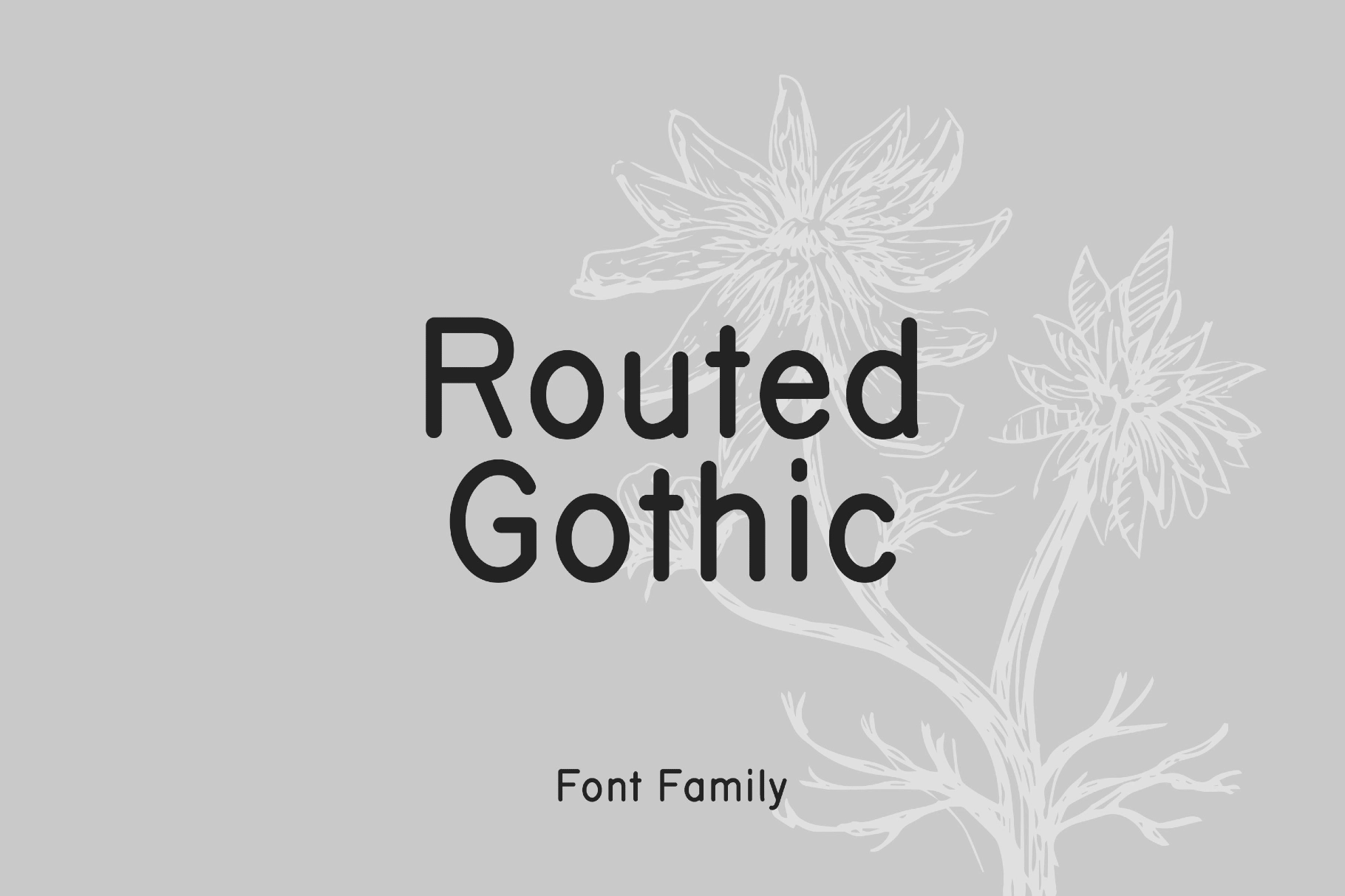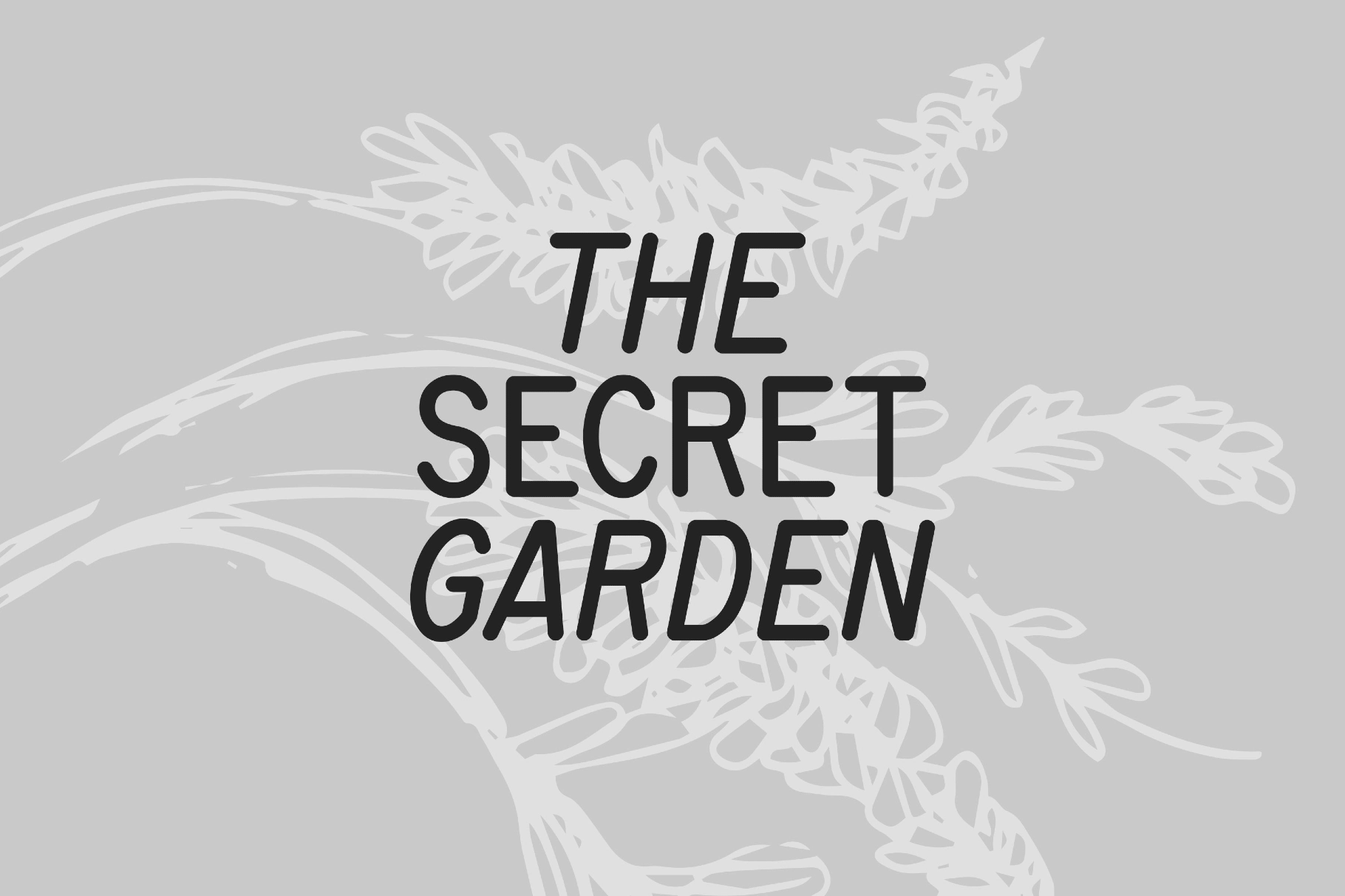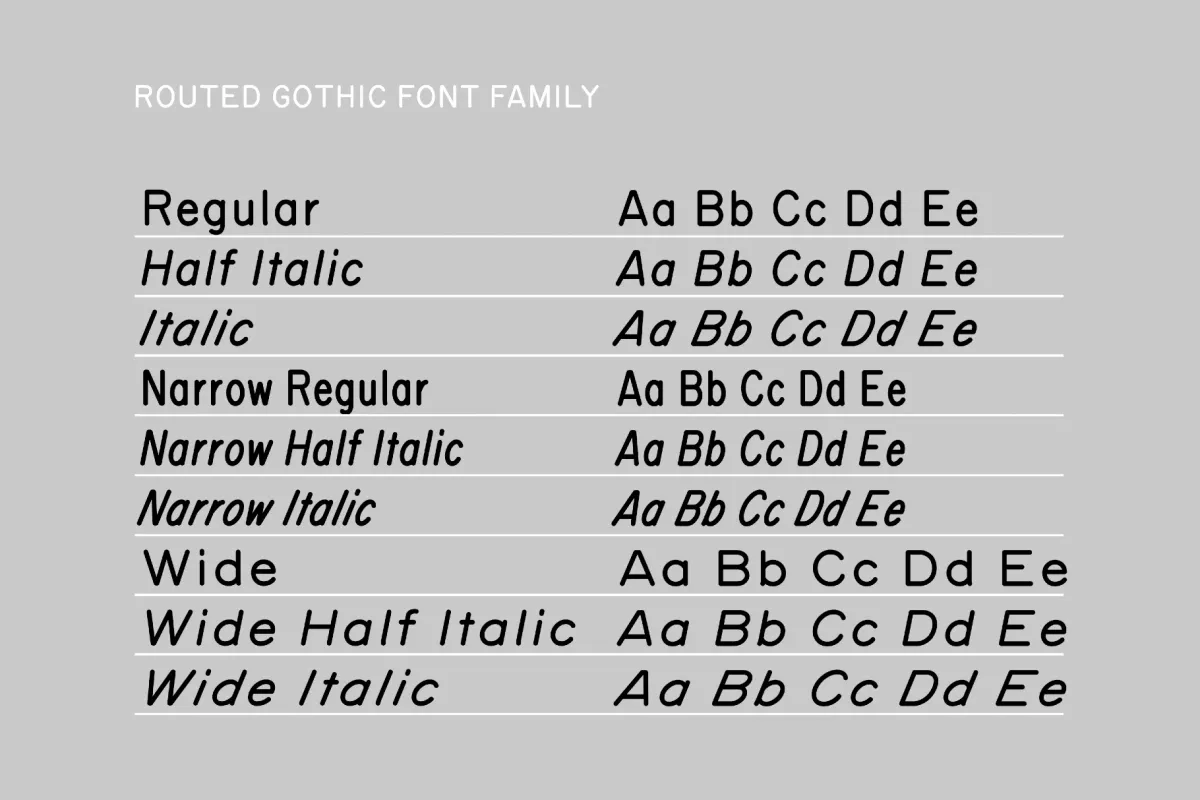
Routed Gothic Font Family
Routed Gothic delivers monoline strokes, open counters, and gentle terminal curves wrapped into an engineered flow. It's got upright and tidy proportions, so wayfinding, labels, and headlines read clean.
The font works well for packaging of tech accessories, cosmetics, stationery, and home goods, as well as for transport-style wayfinding, ticketing, and menus. It also suits data-heavy editorial layouts, minimalist posters, brand systems for start-ups, and SaaS tools.
Included: uppercase and lowercase letters, numbers, punctuation and symbols, extra symbols plus multilingual support, international characters, and extended support for mathematical symbols and metrics. Nine styles are included — Regular, Narrow, and Wide with matched Half-Italic and Italic.